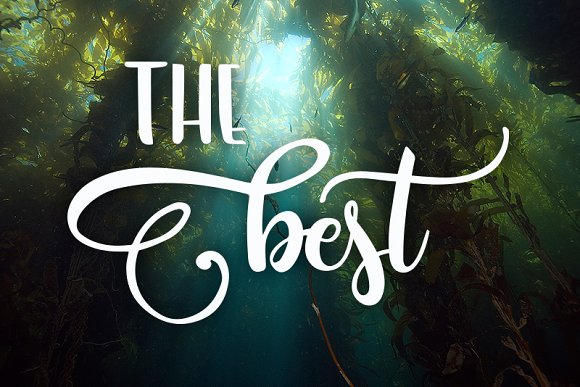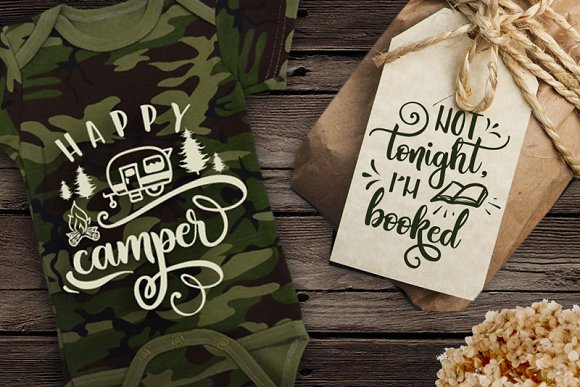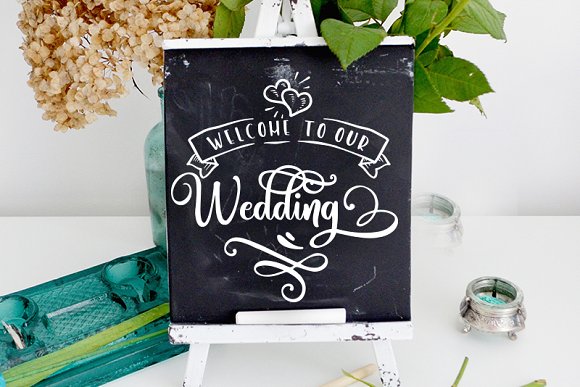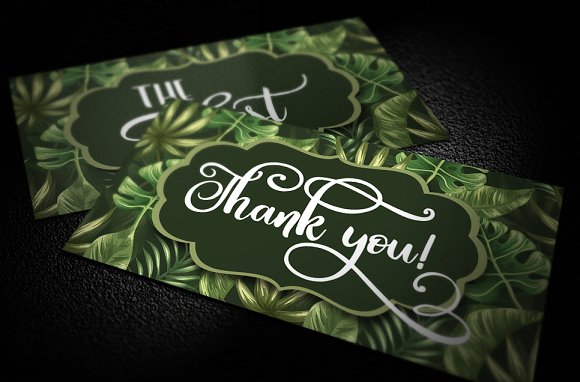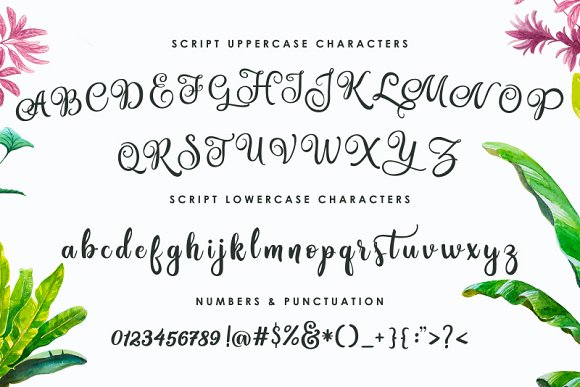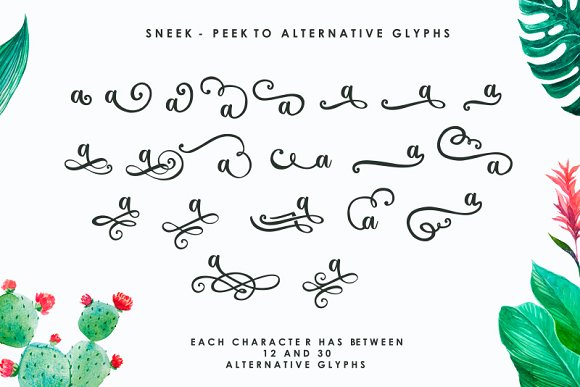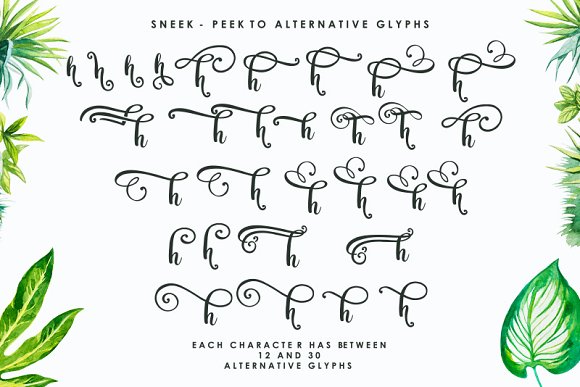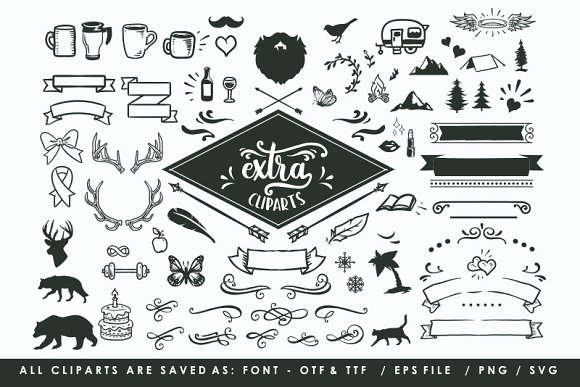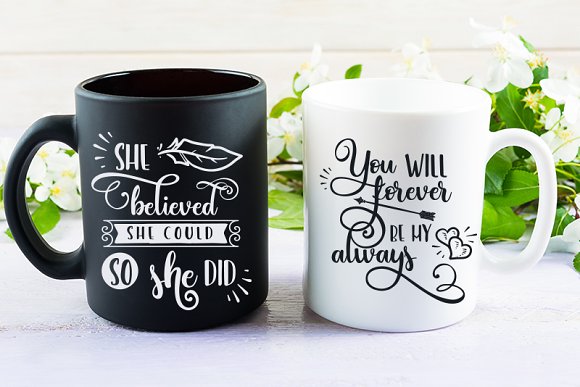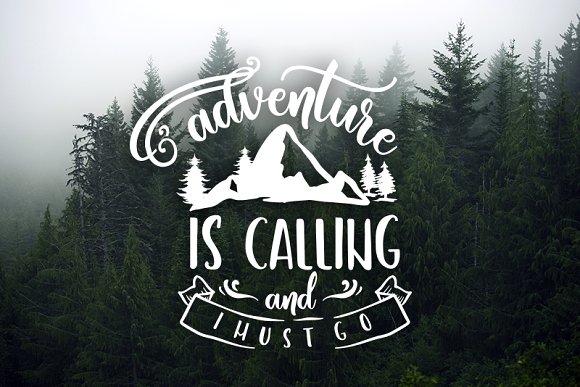
Amastery Font
About Amastery Font
The Amastery Font Duo is a stunning duo that brings together 2 complimentary fonts:
Amastery Script
Amastery Hand
The font is very smooth and easy on the eyes. Amastery works great for both digital and print purposes.
A stunning extras font is included, packed with stunning icons & symbols.